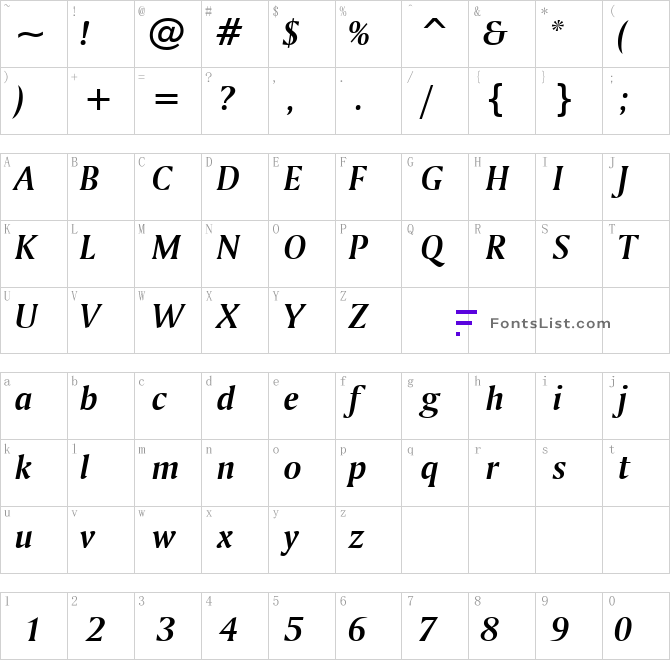
- Font Name:Amerigo BT
- Subfamily:Bitstream Amerigo Bold Italic, Flareserif 831
- Full Name:Amerigo Bold Italic BT
Amerigo-Bold-Italic-BT-copy-1-.ttf is a very beautiful artistic font, Amerigo-Bold-Italic-BT-copy-1-.ttf is widely used in the design and printing of various books and pictures,Amerigo-Bold-Italic-BT-copy-1-.ttf has a strong visual impact,Amerigo-Bold-Italic-BT-copy-1-.ttf is a commonly used font in newspapers, magazines and books, and is used in posters, e-commerce Poster design, store design, logo design, font design and other fields.Amerigo-Bold-Italic-BT-copy-1-.